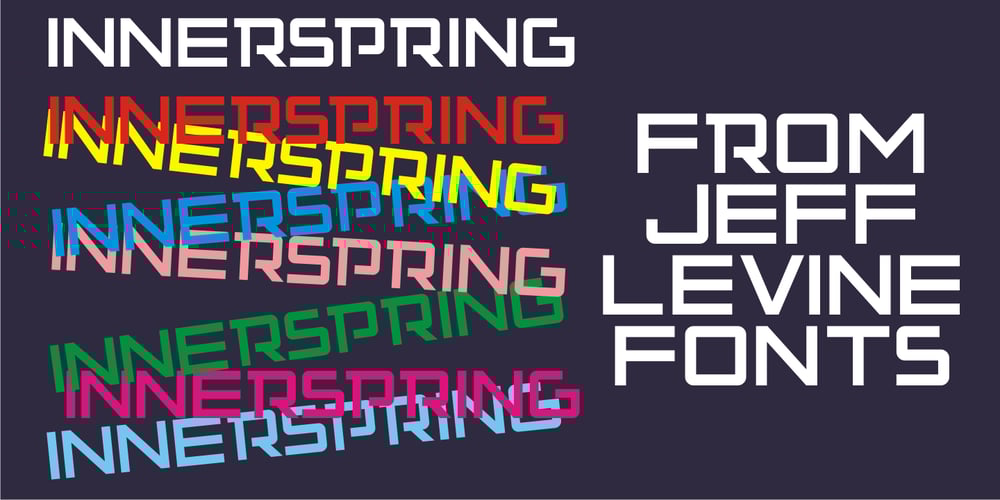
Innerspring JNL Font Family was designed by Jeff Levine and published by Jeff Levine. Innerspring JNL contains 1 styles and family package options. A silk screened sign promoting a mattress sale that was spotted on Flickr features Art Deco-influenced sans serif lettering that is the basis for Innerspring JNL.